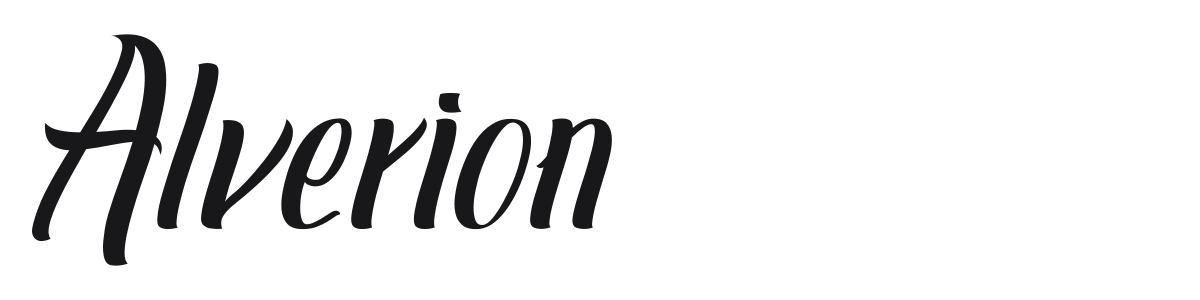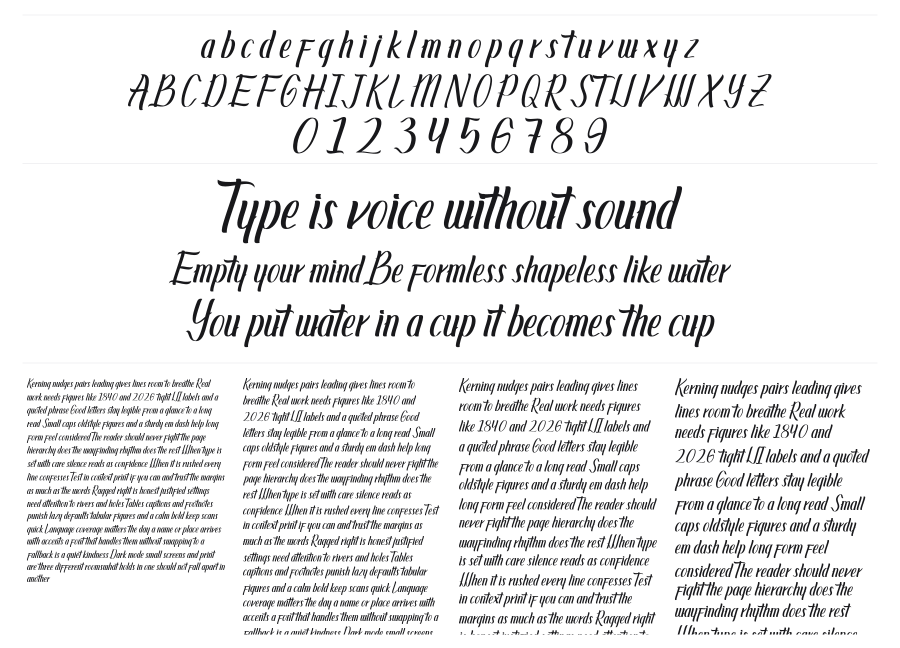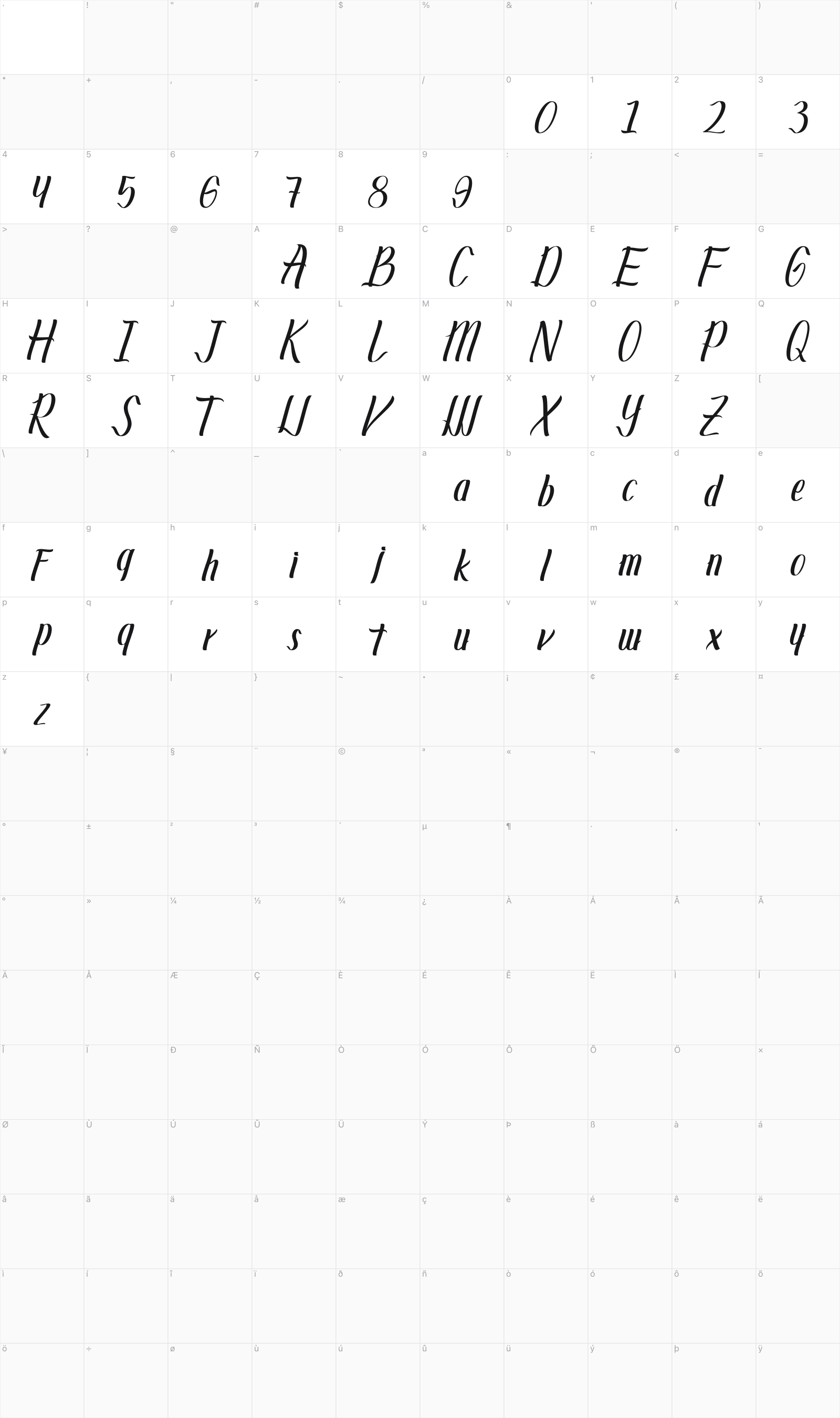
Alverion
Alverion is a bold calligraphic script with sweeping italic strokes and dramatic contrast between thick stems and hairline thins. The fluid connections and generous flourishes give it an energetic formality that sits somewhere between classic penmanship and modern editorial style. It reads confidently at large sizes and brings warmth to branding, invitations, and packaging.